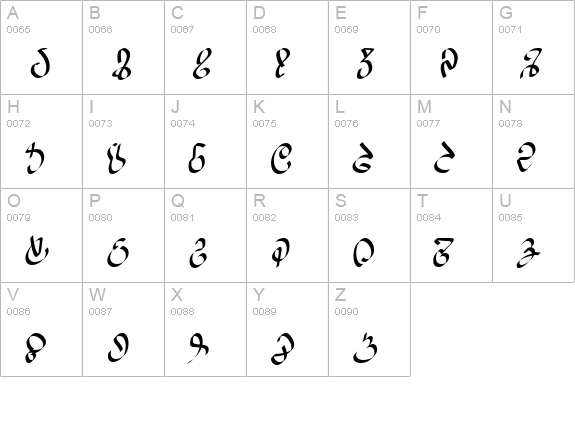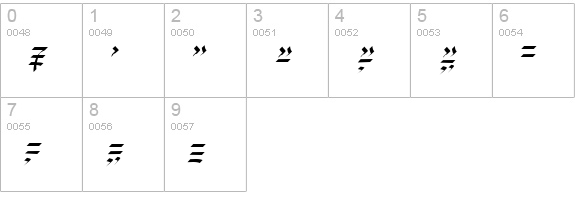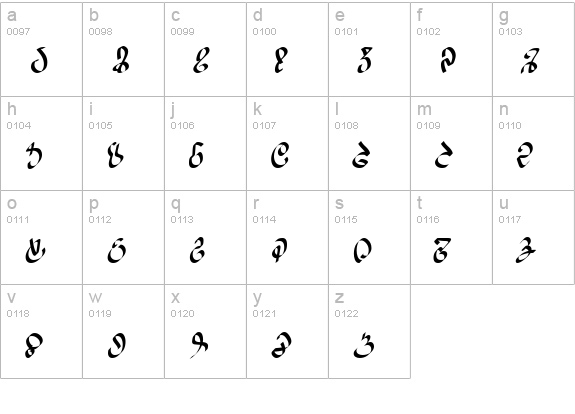
WizardSpeak Font Details
Introducing WizardSpeak, a mesmerizing font that will transport you to a realm of magic and wonder with every letter. This enchanting typeface showcases intricate curves and elegant strokes, evoking the essence of ancient incantations and mystical scripts. Whether you're designing a spellbinding logo, creating enchanting invitations, or crafting captivating headlines, WizardSpeak will elevate your project to new magical heights. What sets WizardSpeak apart is not only its captivating design, but also the fact that it is freely available to download at FontsMarket.com. That's right, you can now harness the power of this spellbinding font without spending a single coin. Experience the joy of unlimited creative possibilities as you seamlessly incorporate WizardSpeak into your designs, adding a touch of mysticism and charm. With its wide range of characters and versatile ligatures, WizardSpeak allows you to effortlessly create stunning designs that capture the essence of the supernatural. Each letter is carefully crafted to exude a sense of ancient wisdom and arcane knowledge, making this font the perfect choice for any project that aims to captivate and mystify. Whether you're a professional designer, an aspiring artist, or simply a fan of all things magical, WizardSpeak is the font you've been searching for. Its seamless blend of elegance and enchantment will add a touch of whimsy to any project, leaving a lasting impression on your audience. So don't miss out on this extraordinary opportunity to bring a little bit of magic into your designs. Visit FontsMarket.com today and download WizardSpeak for free. Unleash your creativity and let the mystical powers of this font mesmerize and inspire you. The possibilities are endless with WizardSpeak at your fingertips.